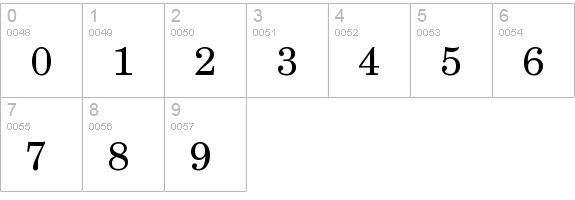
QTSchoolCentury Regular Font Details
QTSchoolCentury Regular is the standard, neutral variant in the QTSchoolCentury typeface family \xE2\x80\x94 well suited to general body text, paragraphs, and standard typographic work.
QTSchoolCentury Regular font is a classic and timeless typeface that brings a touch of elegance to any design project. Its clean and clear letterforms make it perfect for both print and digital applications. With its balanced proportions and smooth curves, this font exudes a sense of professionalism and sophistication. The versatility of QTSchoolCentury Regular font makes it suitable for various design purposes, including branding, advertising, editorial design, and more. Whether you're creating a logo, designing a brochure, or crafting a website, this font will add a touch of refinement to your work. One of the best things about QTSchoolCentury Regular font is that it is freely available to download at FontsMarket.com. This means that you can access and use this font without any cost or restrictions. It's a great option for designers on a budget or anyone looking for a high-quality font without breaking the bank. The font file for QTSchoolCentury Regular is easy to install and compatible with both Mac and Windows operating systems. Once you have it installed, you can start using it in your favorite design software, such as Adobe Photoshop, Illustrator, or InDesign. With its timeless appeal and versatile design, QTSchoolCentury Regular font is sure to become a staple in your font library. Whether you're creating a professional logo, designing a sleek website, or putting together a polished print advertisement, this font will help you achieve the perfect balance of style and professionalism. So why wait? Head over to FontsMarket.com and download QTSchoolCentury Regular font for free today!